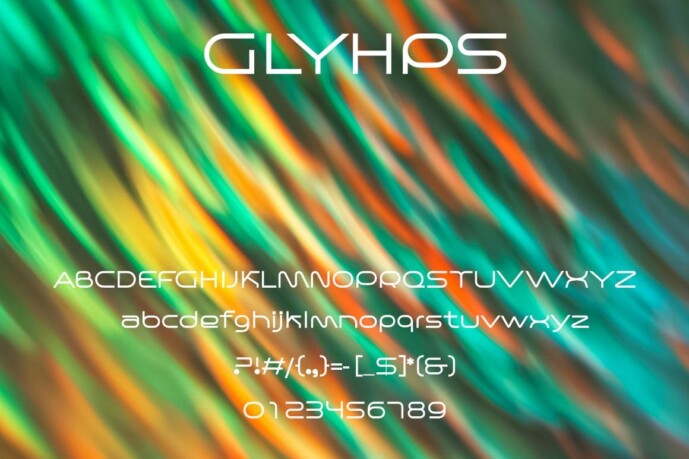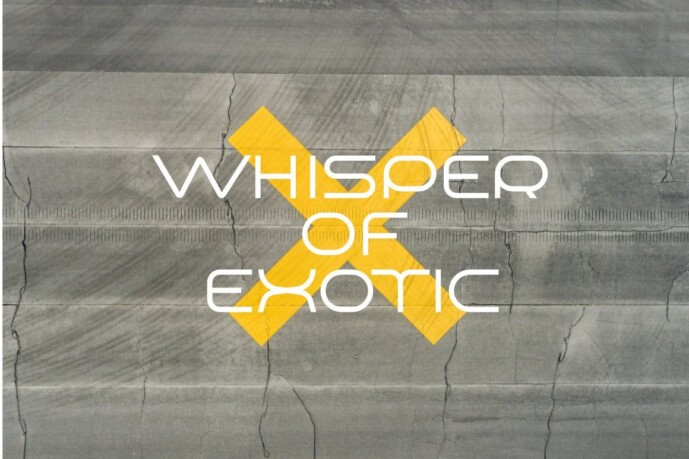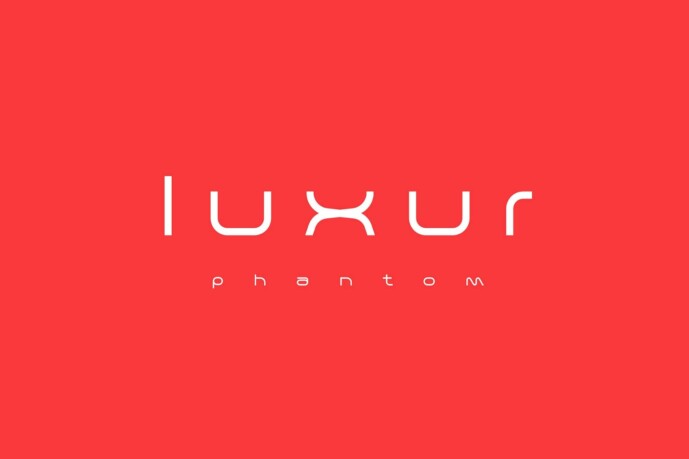
FF Mab Font
Designer: ffeeaarr
FF Mab Font, this typeface isn’t just about function, it’s also about feel. Evoke the energy of the digital age, the thrill of the unknown. Leave a lasting impression in a world of fleeting trends